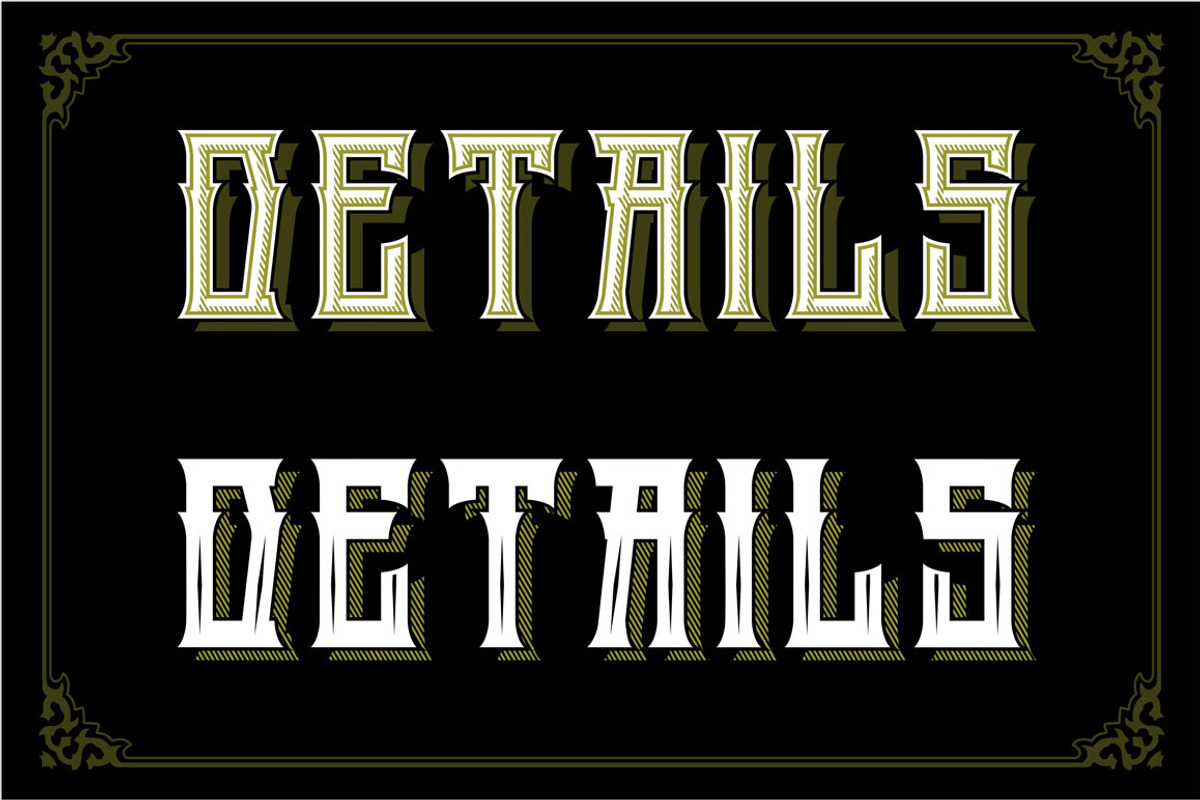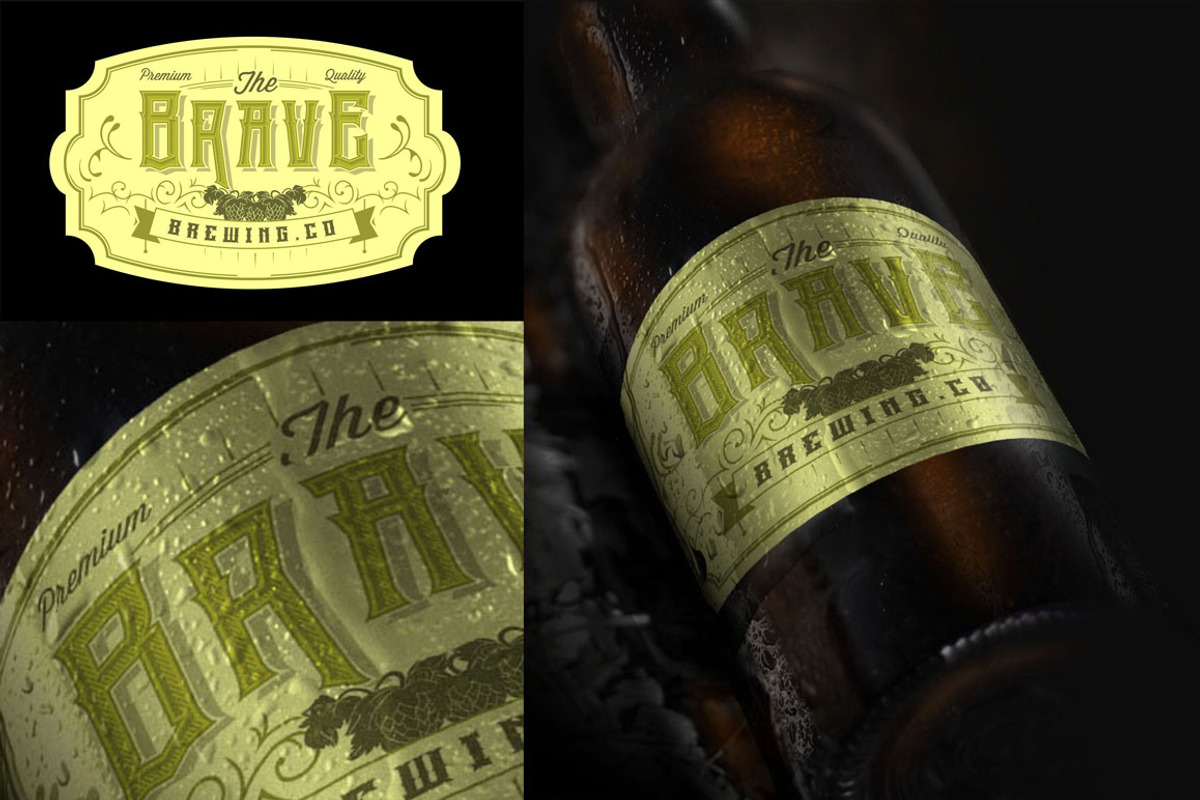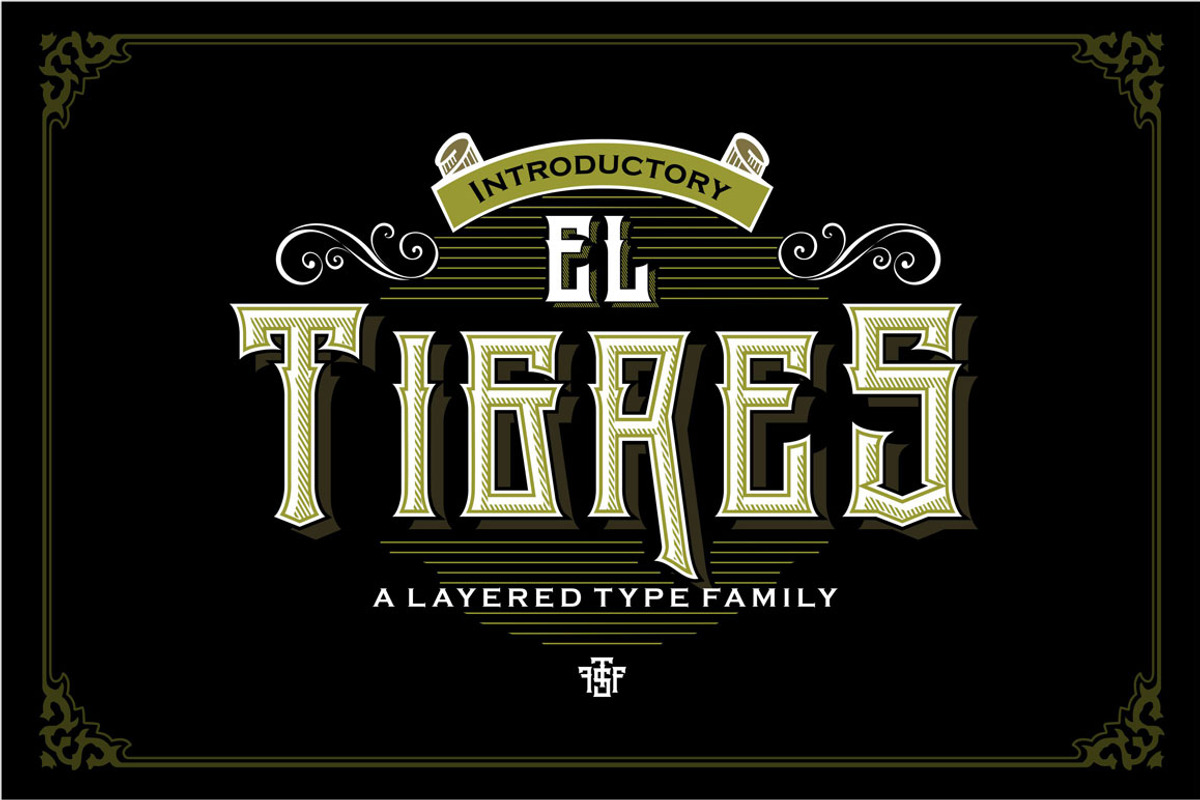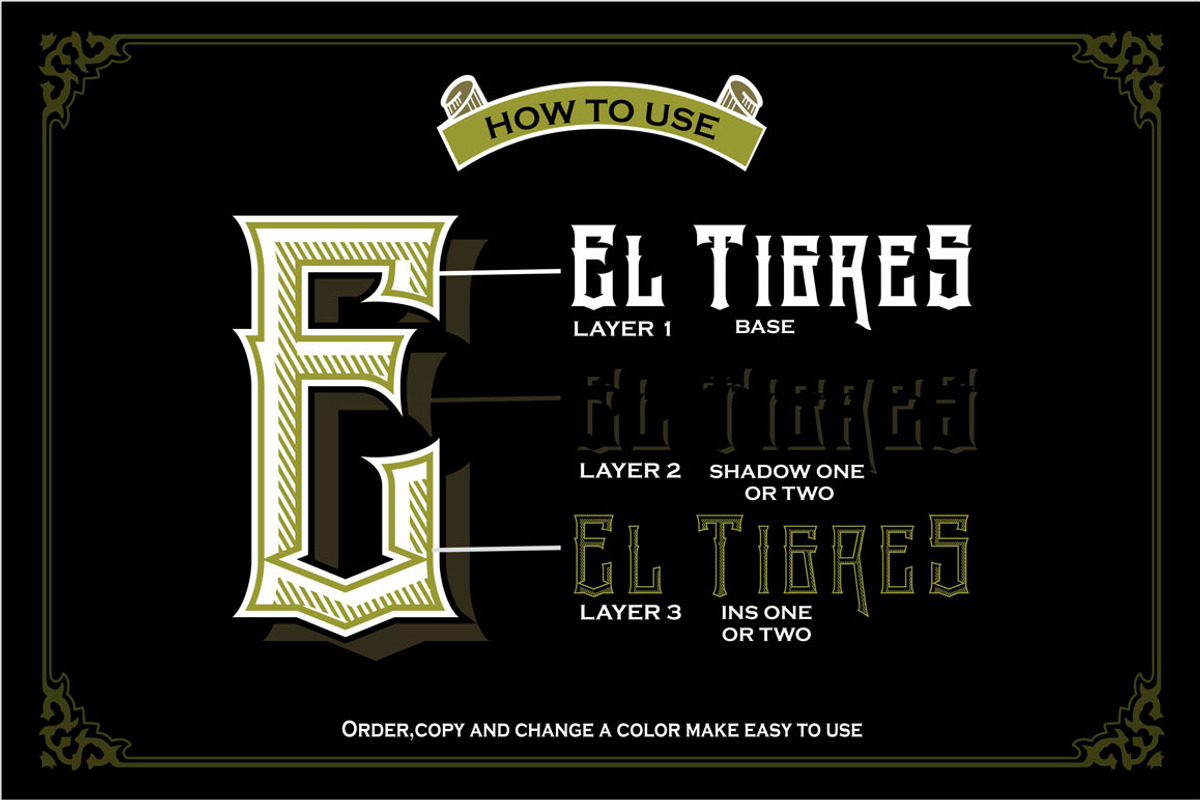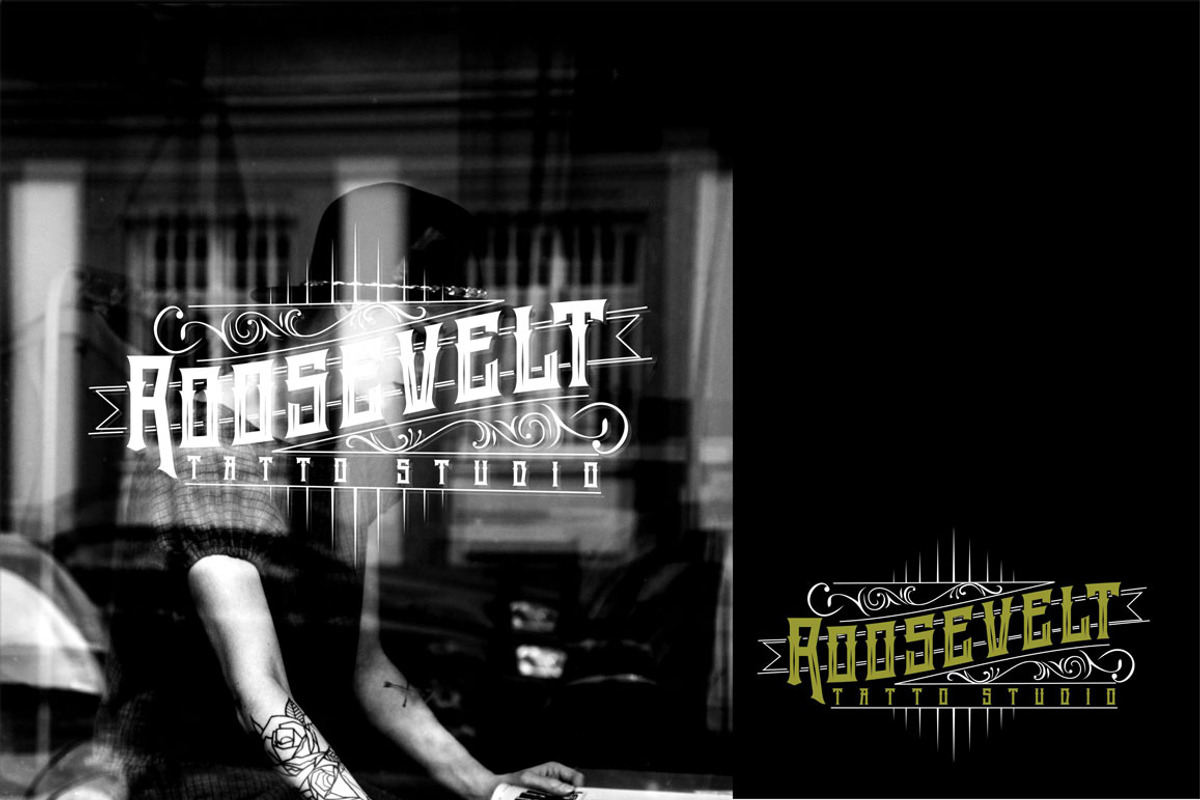
El Tigres Typeface
El Tigres Typeface by uncurve is a font selected for branding, posters, packaging, typography.
Why El Tigres Typeface is worth a look
El Tigres Typeface by uncurve fits naturally into Branding, posters, packaging, typography.